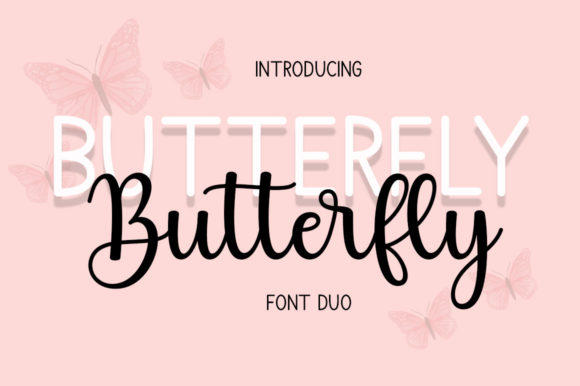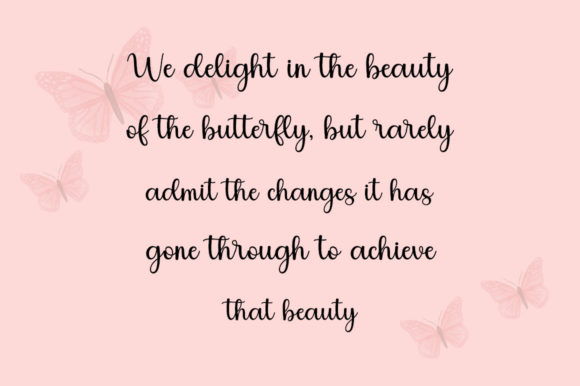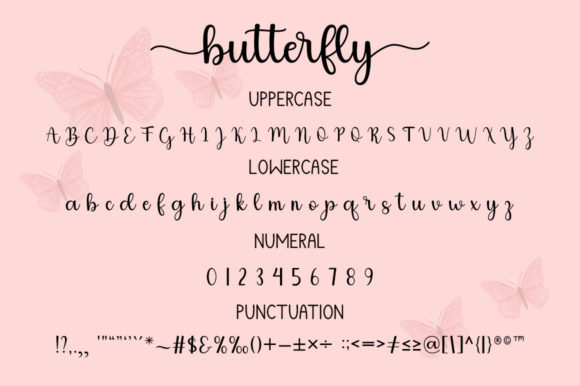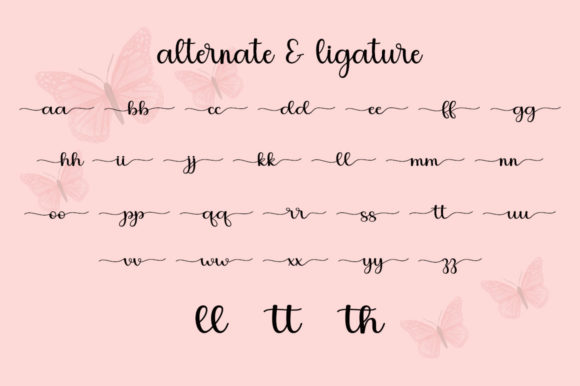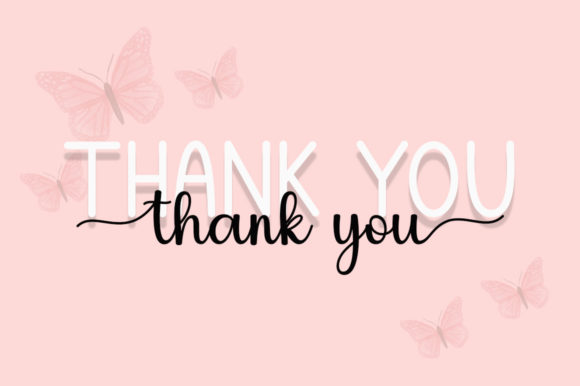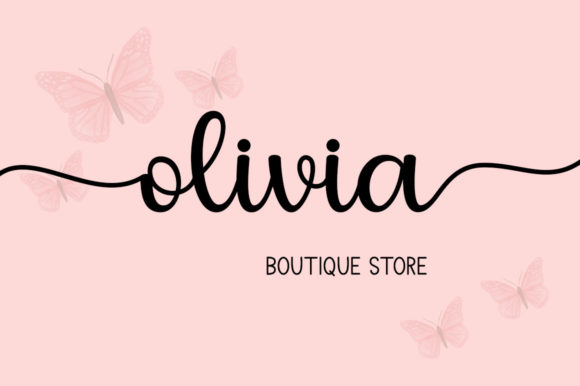
Butterfly is lovely duo font (sans serif and script). This versatile script font has a wide spectrum of applications ranging from greeting cards to headlines and is guaranteed to add a fun feel to your next project. Butterfly is PUA encoded which means you can access all of the glyphs and swashes with ease!